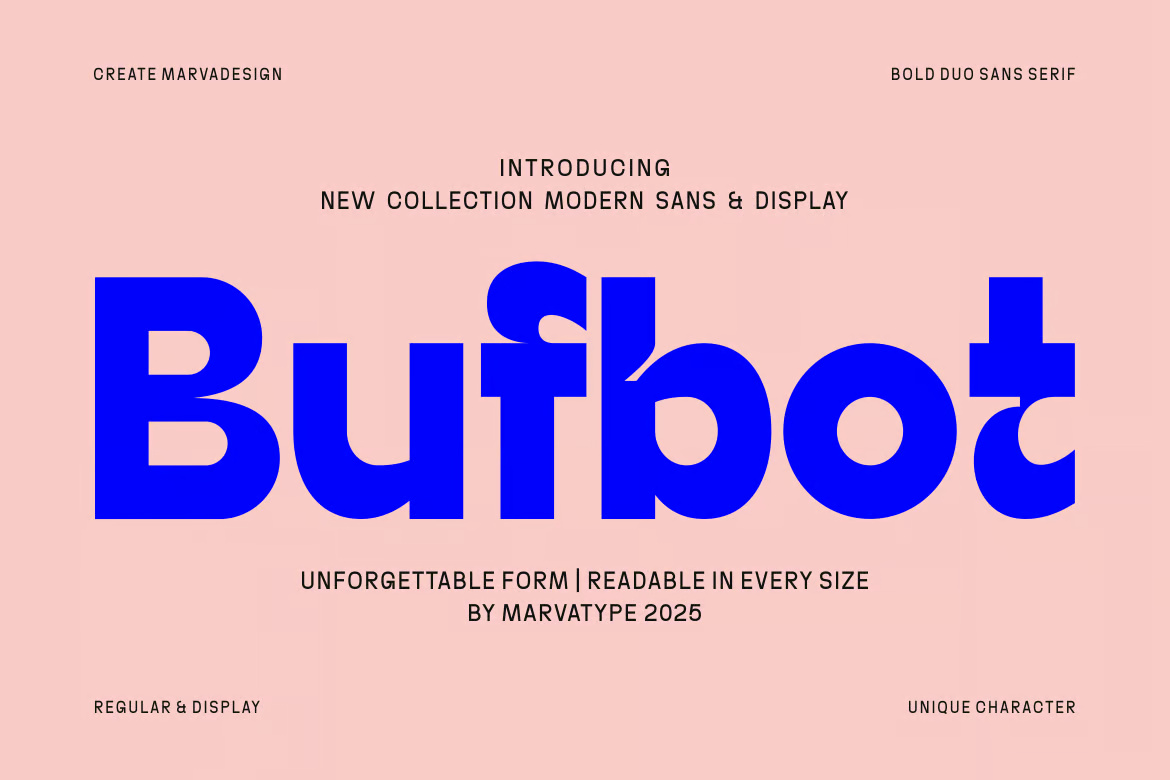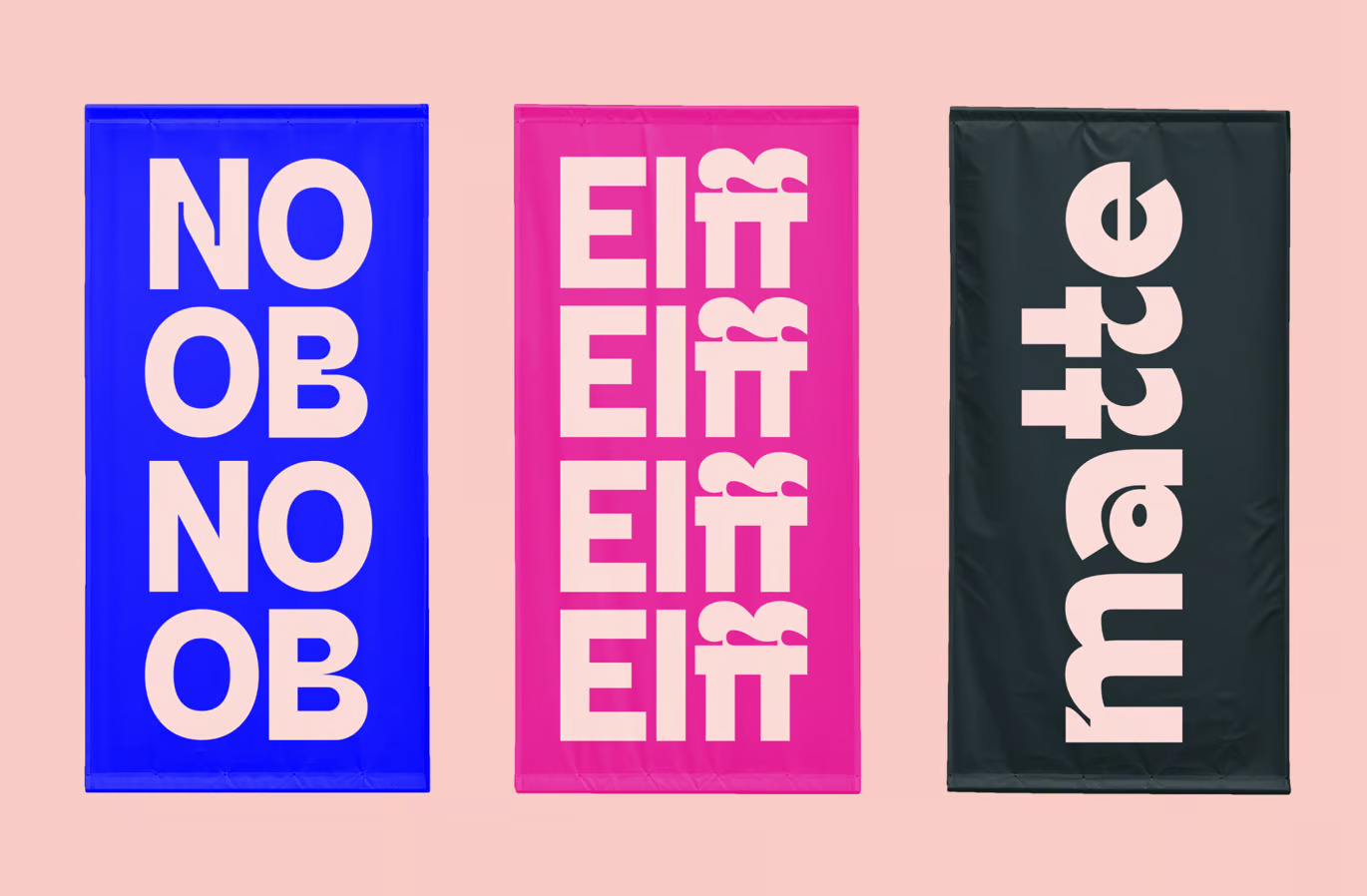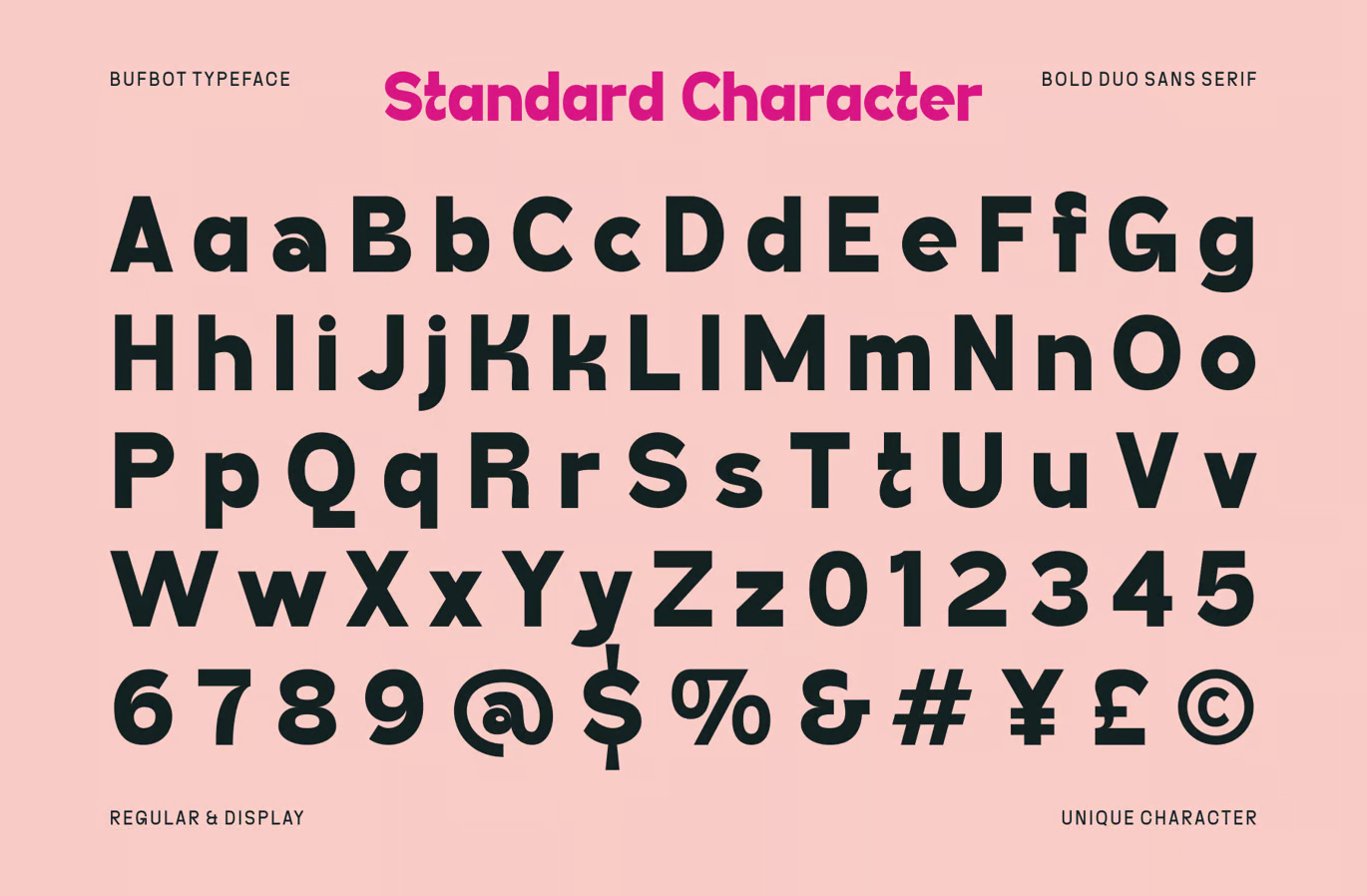
Introducing Bufbot, a bold, modern sans serif typeface that blends clean, structured forms with unique, display-style characters. Available in two styles – Regular and Display – Bufbot offers incredible versatility, designed to stand out while maintaining superb readability across sizes. Its rounded, geometric construction adds a futuristic touch, making it perfect for branding, editorial headlines, posters, and digital design. Every letterform incorporates distinct visual cues, ensuring memorability and personality without sacrificing clarity.
Bufbot is more than just a typeface; it’s a bold design statement, tailored for modern visual communication.
Bufbot Display Sans-Serif Font